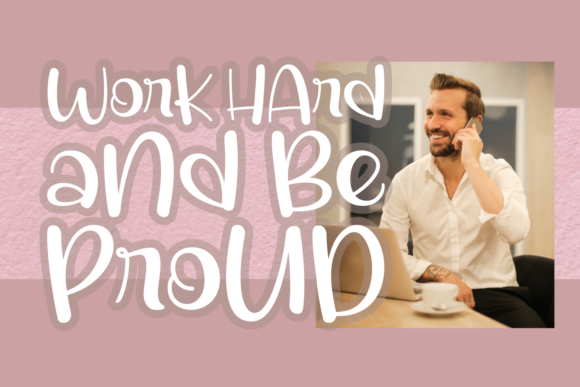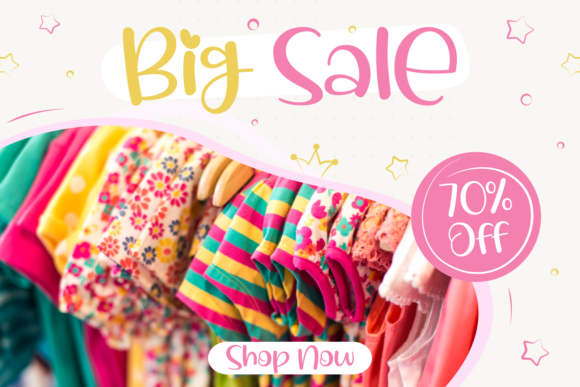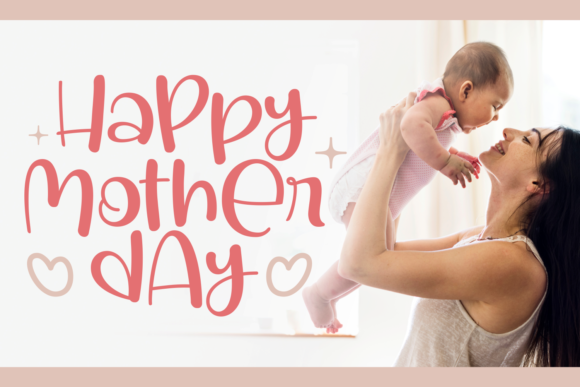
Introduction to Naila Lane Font
Naila Lane is an incredibly cute and jolly handwritten font, featuring well rounded characters.
Key Features of Naila Lane Font
Why Choose Naila Lane Font?
Naila Lane Font offers exceptional quality and versatility, making it a valuable addition to your design toolkit. Whether you’re creating for personal projects or commercial use, Naila Lane Font delivers professional results.